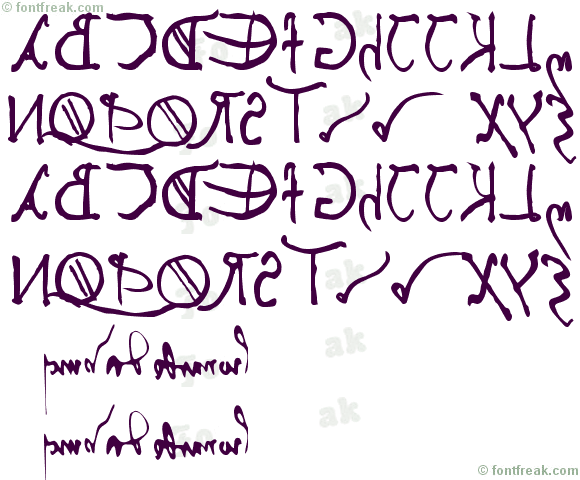
FE-Leonardo'smirrorwriting
The FE-Leonardo'smirrorwriting font is a captivating display typeface that embodies a unique blend of artistic flair and elegance, making it an ideal choice for various creative projects. This font features a distinctive handwritten style, characterized by its fluid strokes and intricate letterforms that exude a sense of sophistication. The stroke weight varies gracefully, providing an engaging contrast that enhances its visual appeal. The letters are well-spaced, allowing for clarity while maintaining an organic, flowing harmony that feels both personal and inviting.
This font is particularly well-suited for wedding invitations, where its romantic aesthetic can beautifully capture the essence of love and celebration. Additionally, it shines in artistic posters and book covers, offering a touch of creativity that can draw in audiences. Restaurant menus can also benefit from the FE-Leonardo'smirrorwriting font, as its elegance adds a refined touch to any culinary presentation. For graphic designers and content creators looking to make their work stand out, this font offers a unique edge, making it a compelling choice for branding projects or promotional materials.
What truly sets the FE-Leonardo'smirrorwriting font apart is its ability to convey emotion through its expressive design. This font not only serves a practical purpose but also adds a layer of artistry that can transform ordinary text into something extraordinary. Whether used for personal or professional projects, it promises to leave a lasting impact.